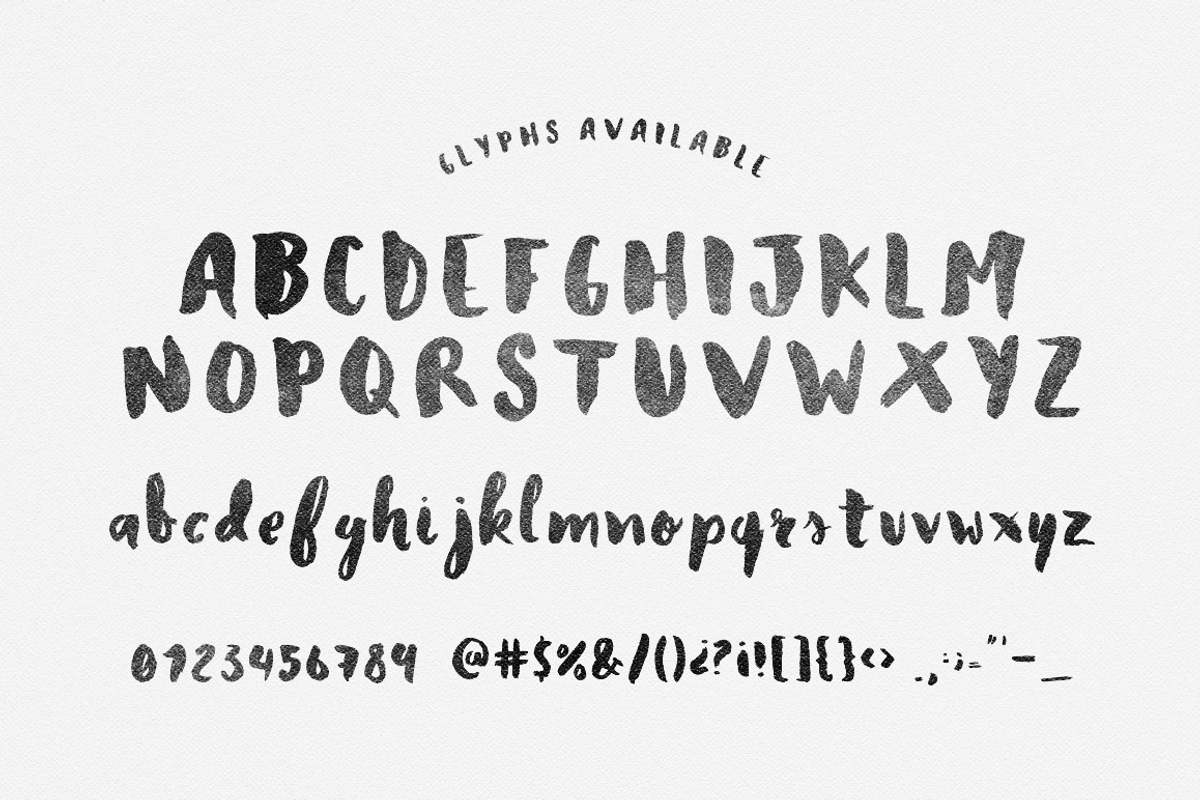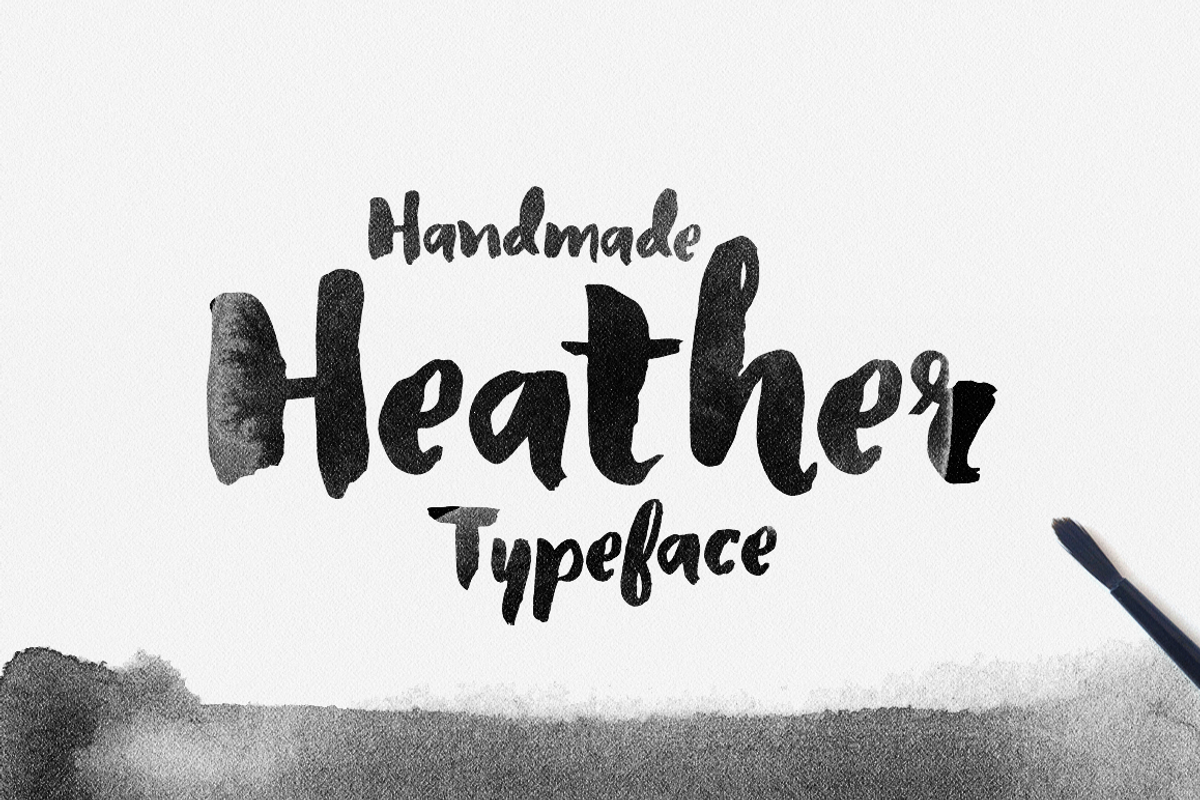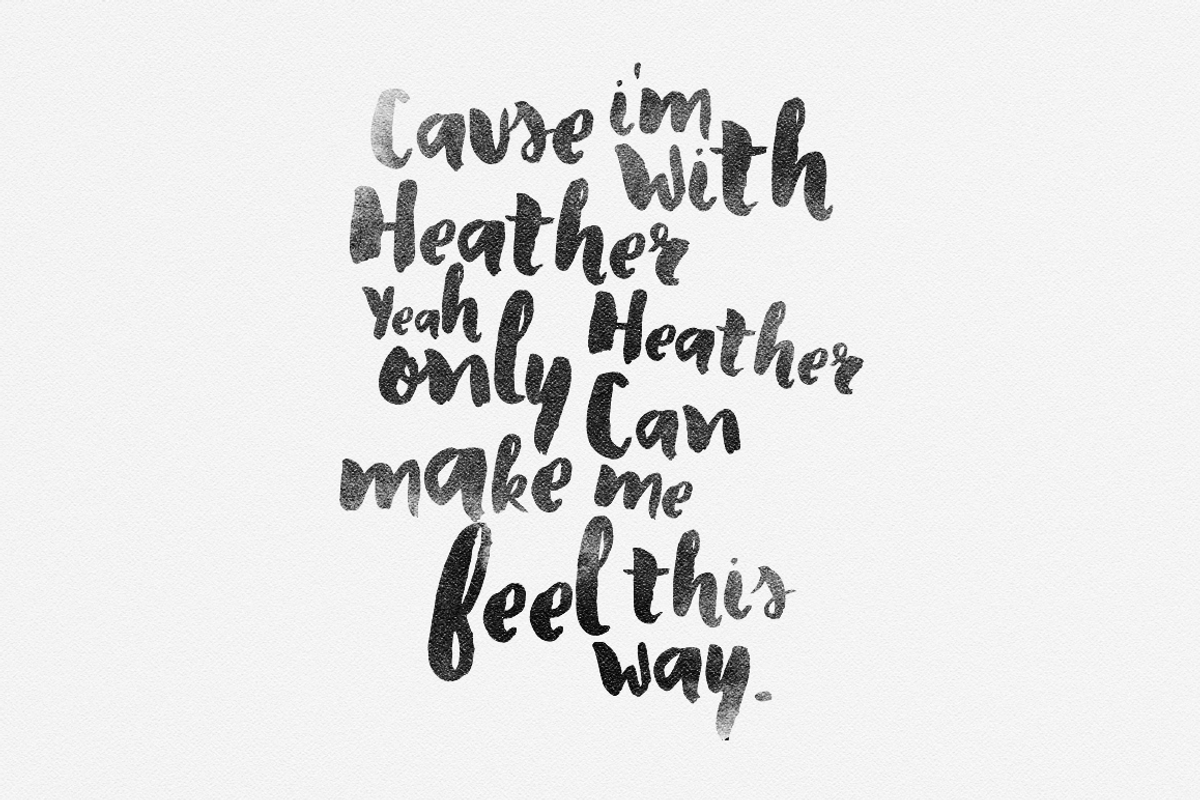
Heather Typeface
Heather Typeface by Noe Araujo is a font selected for branding, posters, packaging, typography.
Why Heather Typeface is worth a look
Heather Typeface by Noe Araujo fits naturally into Branding, posters, packaging, typography.